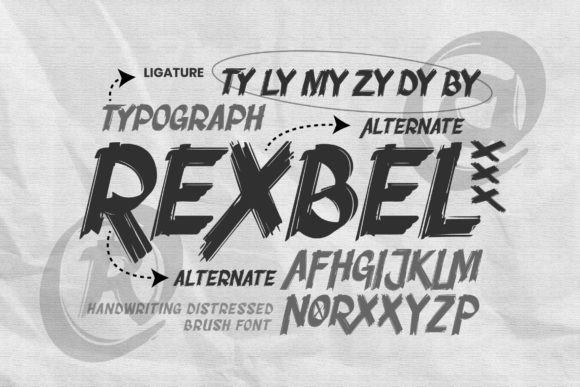
Rexbel Font
REXBEL Rough Brush Font is a bold, rough brush font with gritty, grunge letters created from brush strokes. Drawing inspiration from freestyle brush handwriting and rough brush techniques, REXBEL is infused with a rugged, textured finish. This font is perfect for the world of extreme sports. Its bold strokes and distressed details reflect the intensity and thrill of activities like skateboarding, BMX, and snowboarding.
The freestyle essence of the letters resonates with the fearless and adventurous nature of extreme sports enthusiasts, making it an impactful choice for designs aimed at capturing the essence of adrenaline and action.